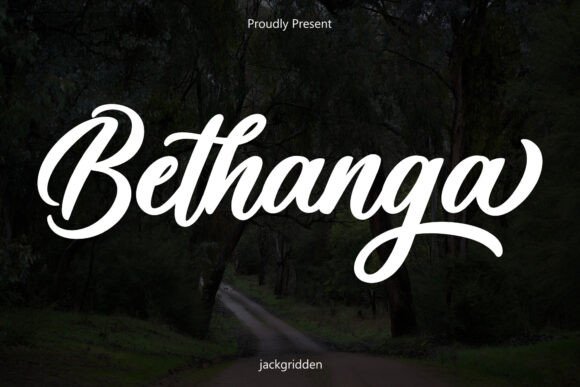
The Designer’s Delight: Uncovering the Charm of Bethanga Font
I’ll never forget the time I was working on a wedding invitation project, and my client asked for a font that was ” elegant, yet playful; sophisticated, yet approachable.” I scoured the internet, tried out dozens of fonts, but nothing seemed to fit the bill. That was until I stumbled upon Bethanga Font. ✨ With its flowing, organic strokes and charming imperfections, it was love at first sight! In this article, I’ll share my experience with Bethanga, its features, and how to make the most of this beautiful handwritten font.
An Honest Review of Bethanga Font
• Unique and Authentic: Bethanga’s hand-crafted feel makes it perfect for projects that require a personal touch.
• Highly Versatile: From invitations to branding, and quotes to social media graphics, Bethanga adapts seamlessly to various design contexts.
• 💫 Elegant yet Approachable: This font strikes the perfect balance between sophistication and friendliness, making it ideal for a wide range of audiences.
• 🎨 OpenType Features: Bethanga comes with a range of OpenType features, including stylistic alternates, ligatures, and glyphs, giving you plenty of creative options.
While Bethanga is an exceptional font, there are a few minor considerations to keep in mind: 🤔
• ⚠️ Legibility at Small Sizes: As with many handwritten fonts, Bethanga may lose legibility when used at very small sizes. Make sure to test it at different sizes to ensure it works for your project.
• ⚠️ Limited Use in Body Text: While Bethanga is perfect for headings and short paragraphs, it may not be the best choice for lengthy body text due to its decorative nature.
The Story Behind Bethanga Font
Rumor has it that Bethanga was inspired by the founder’s grandmother, a talented calligrapher who spent her life perfecting the art of handwritten lettering. 💕 The creator of Bethanga wanted to capture the essence of her grandmother’s work and make it accessible to designers and crafters around the world. Whether or not this story is true, one thing is certain: Bethanga is a true gem in the world of handwritten fonts.
Font Name Bethanga Font
Author jackgridden
Q: Is Bethanga Font suitable for body text?
While Bethanga is perfect for headings and short paragraphs, it may not be the best choice for lengthy body text due to its decorative nature.